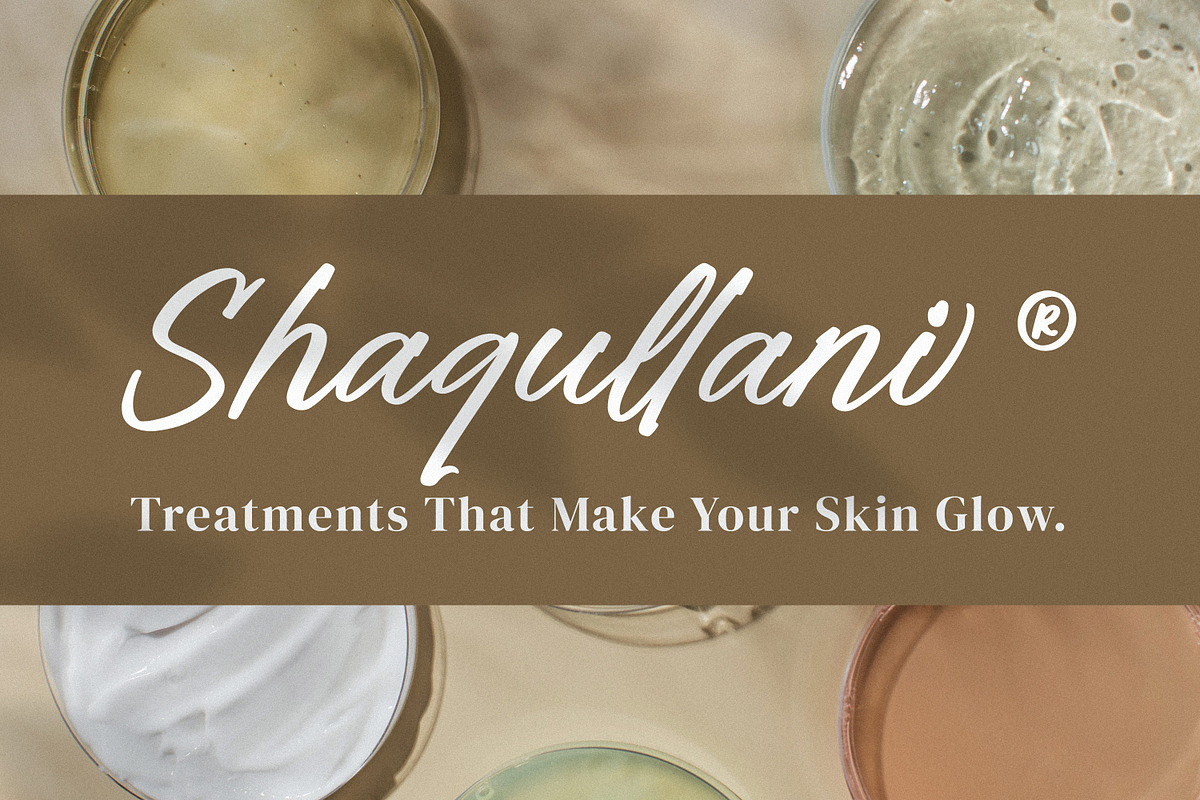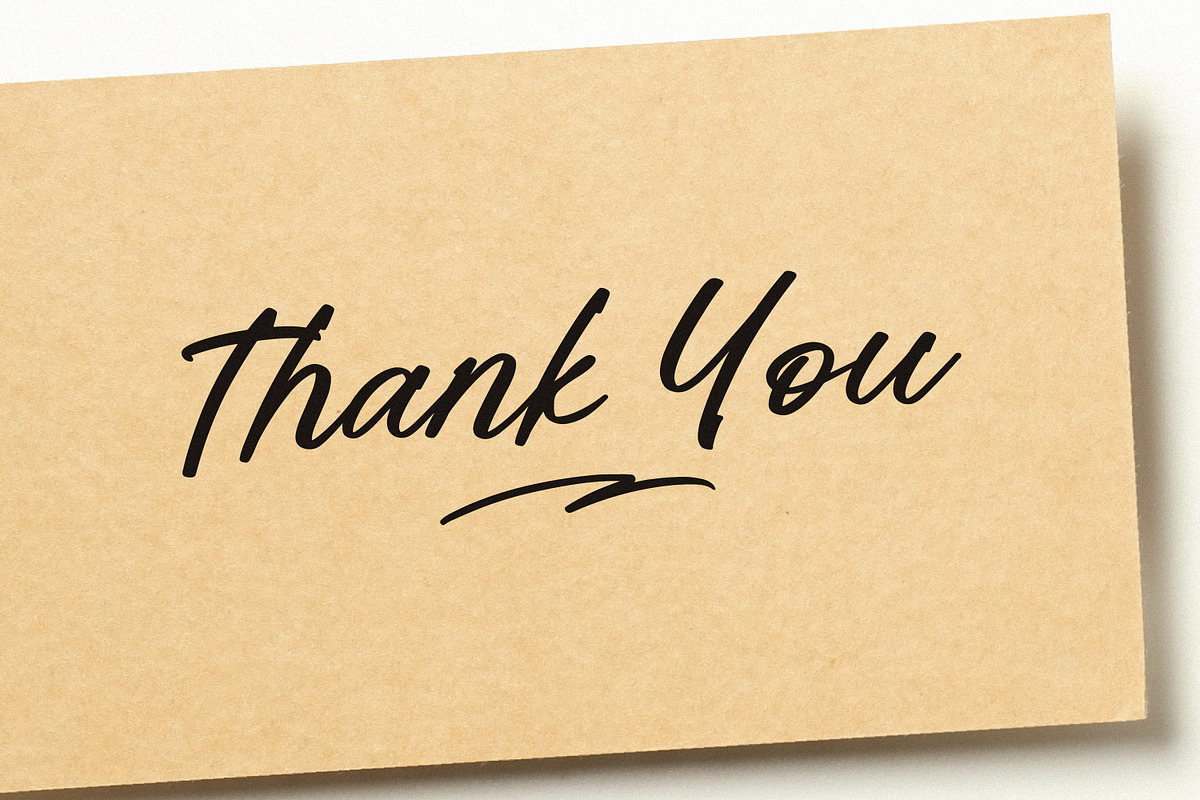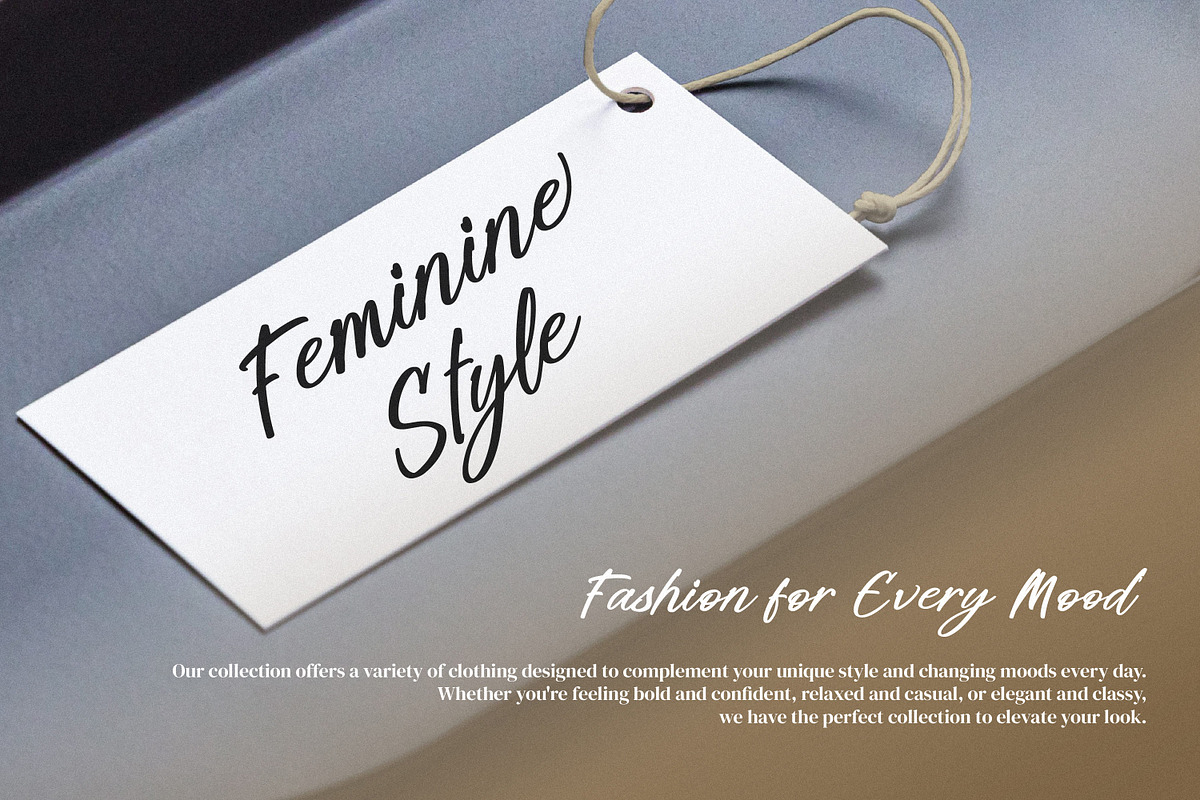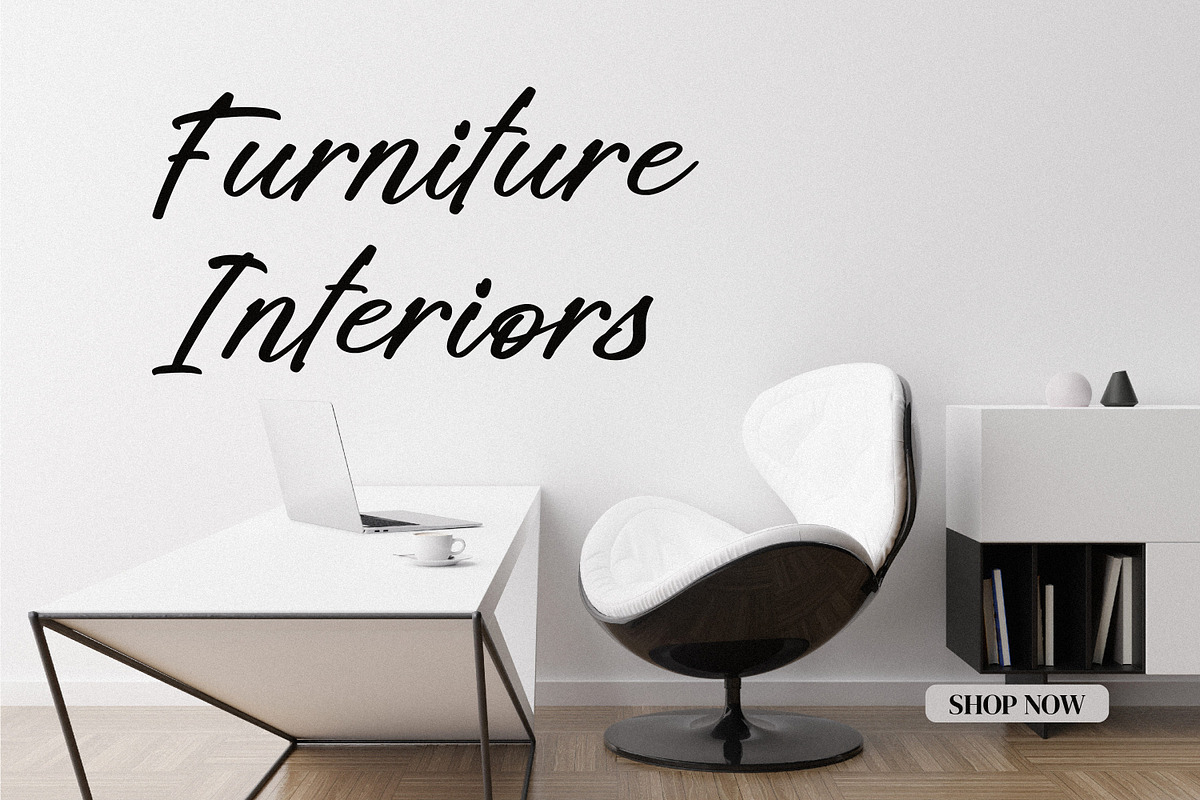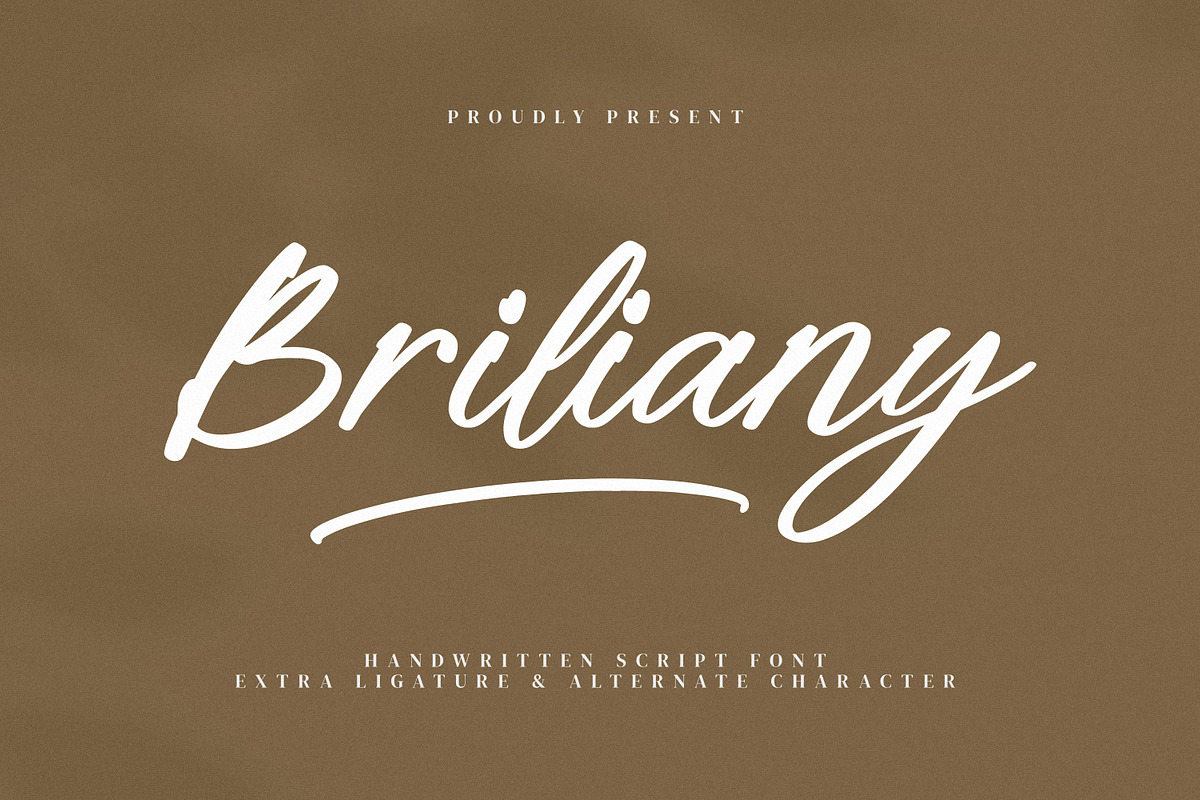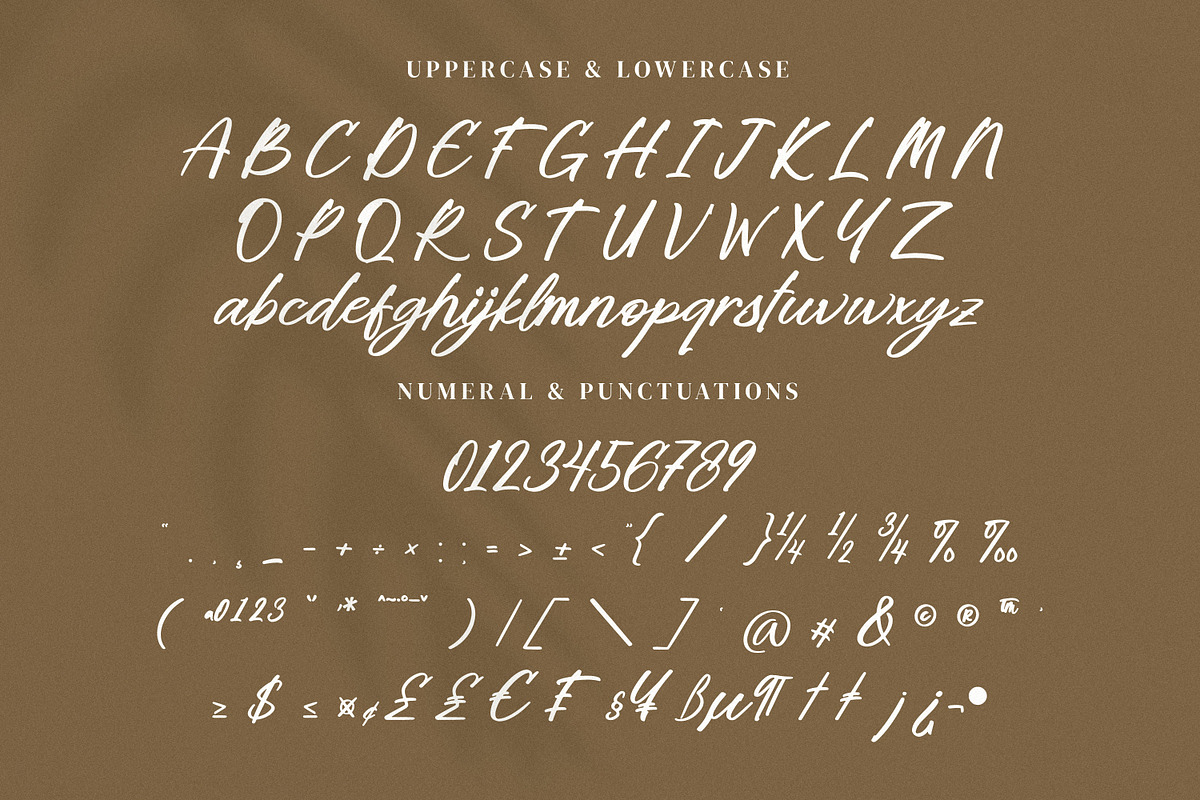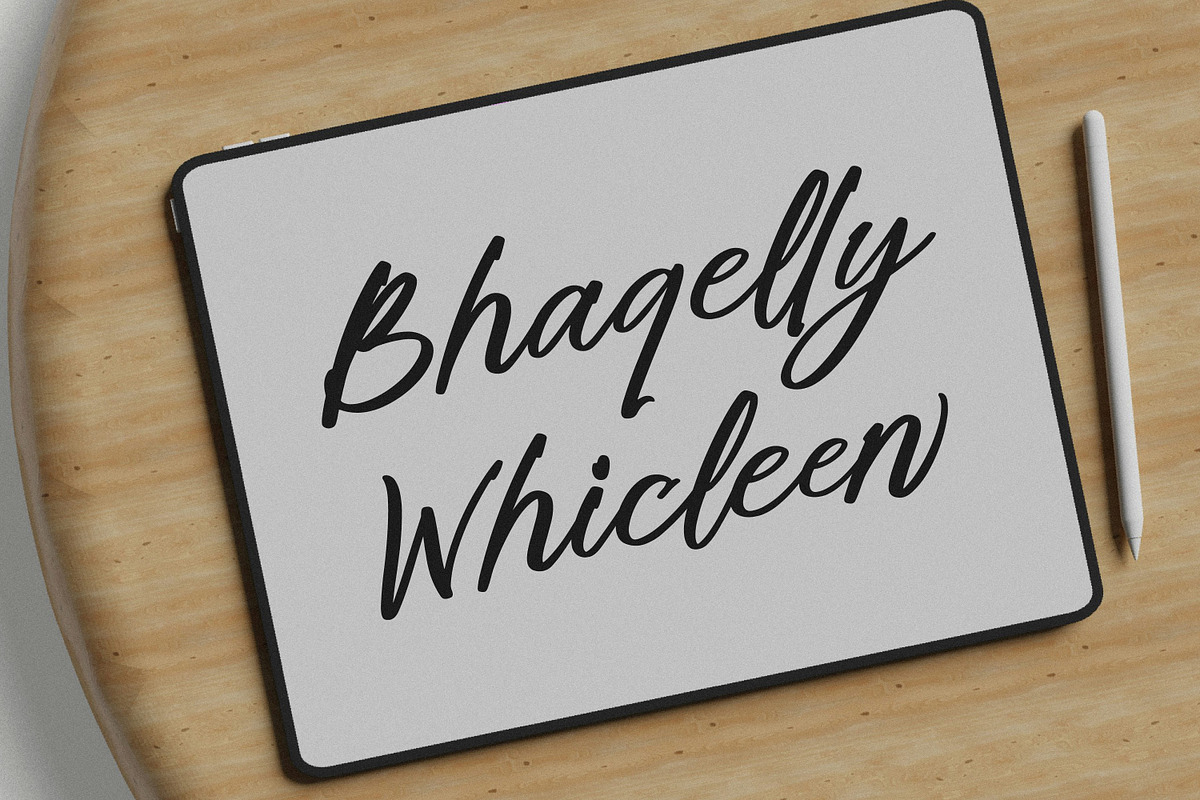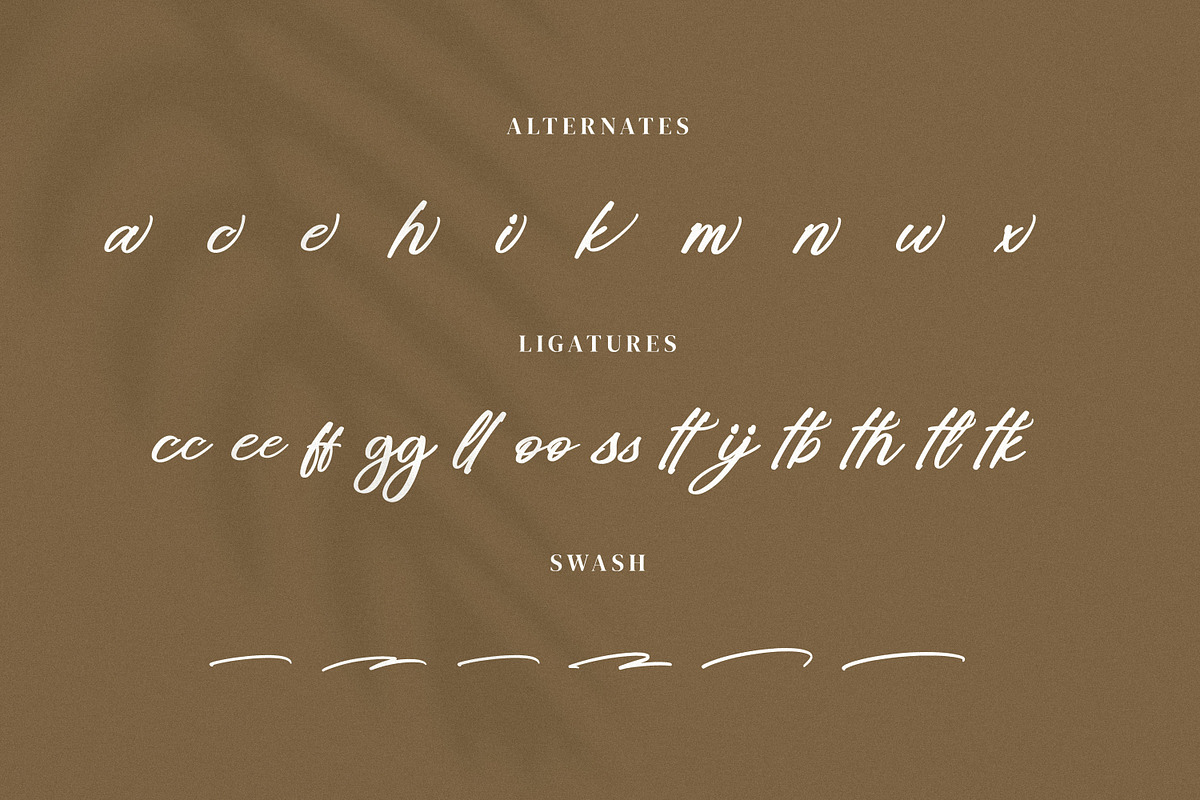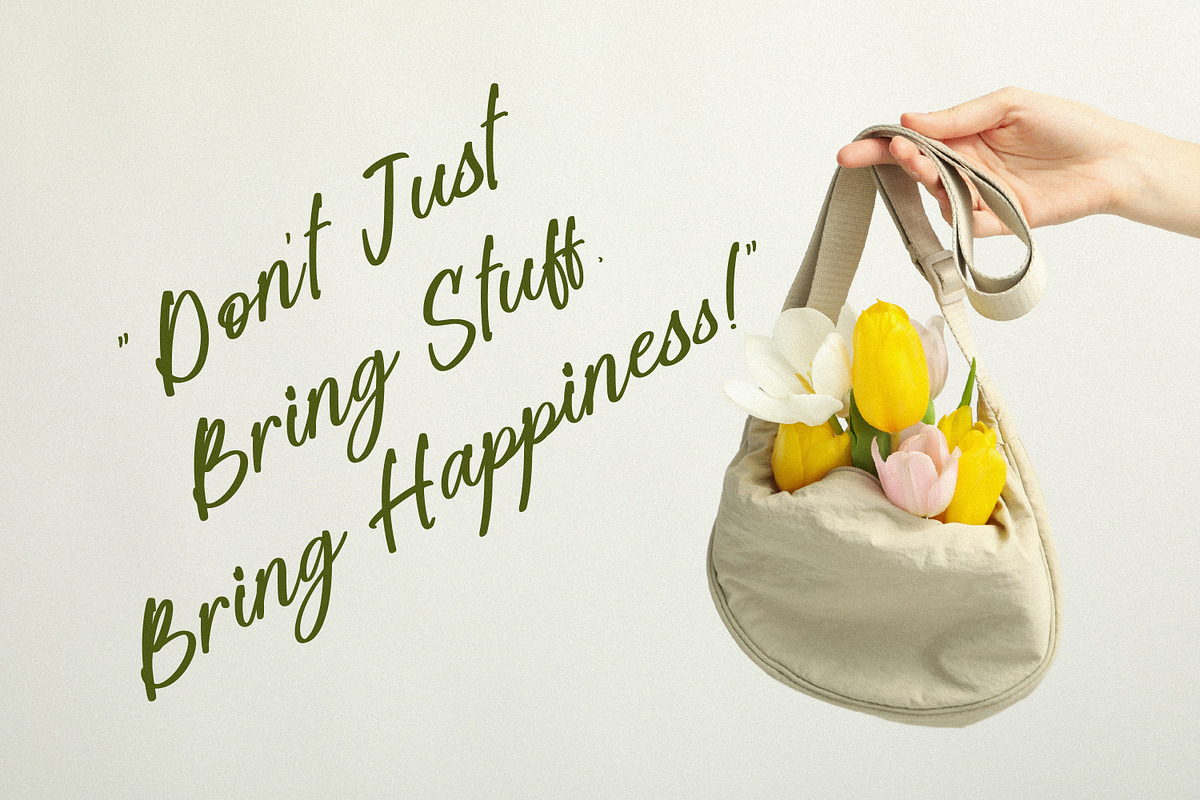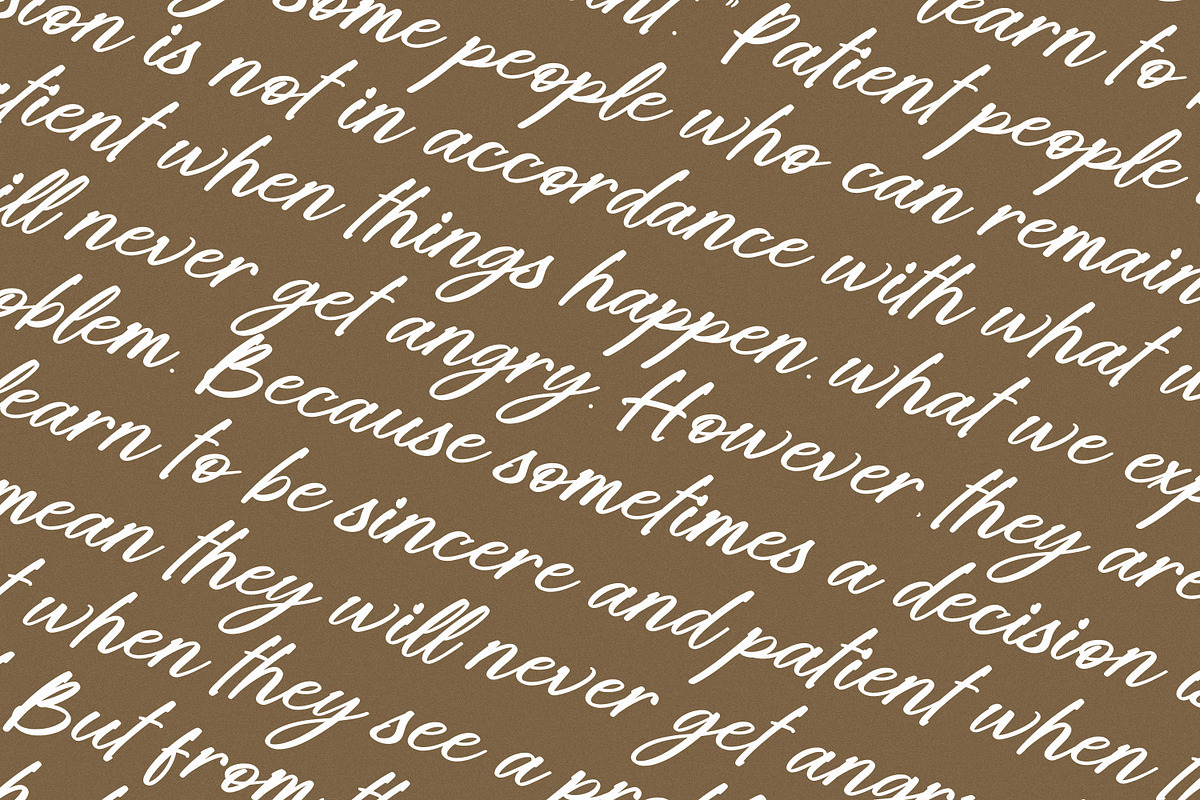
Briliany
Briliany - Handwritten Script Font, from Goresan Studio, suitable for any projects such as: logos, branding projects, homeware designs, product packaging, mugs, quotes, posters, shopping bags, t-shirts, book covers, name card, invitation cards, greeting cards, label, photography, watermark, special events, and all your other lovely projects that need a beautiful script taste.
- Alternate, Ligature and Swash
- Fonts include multilingual support.